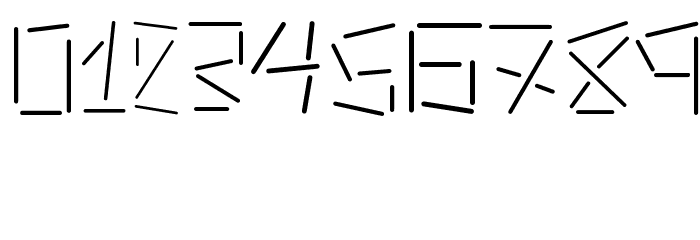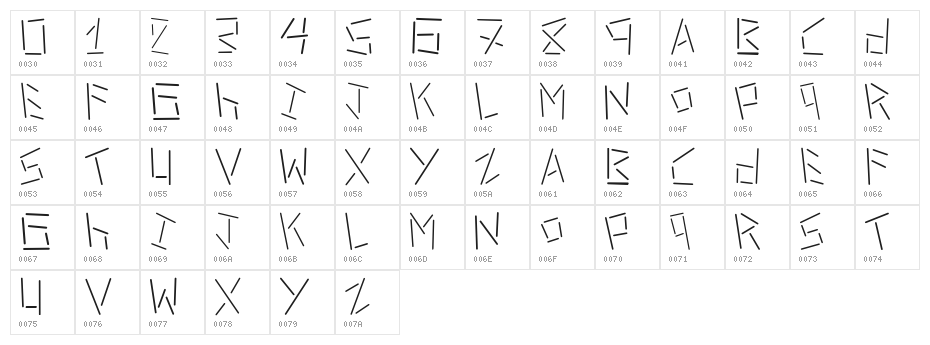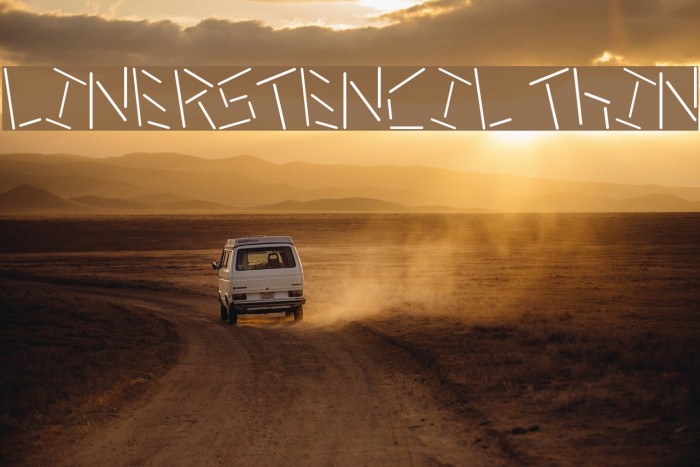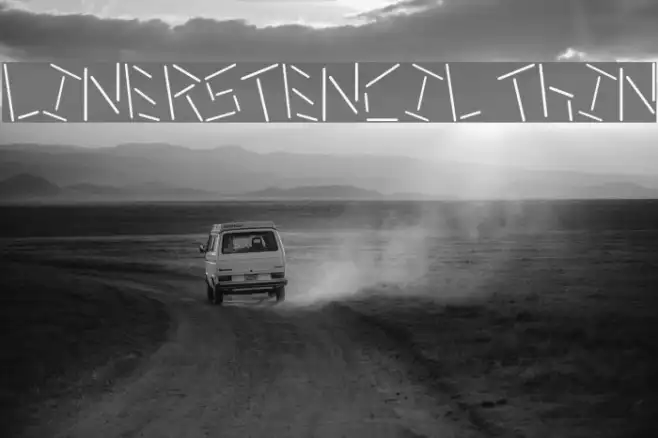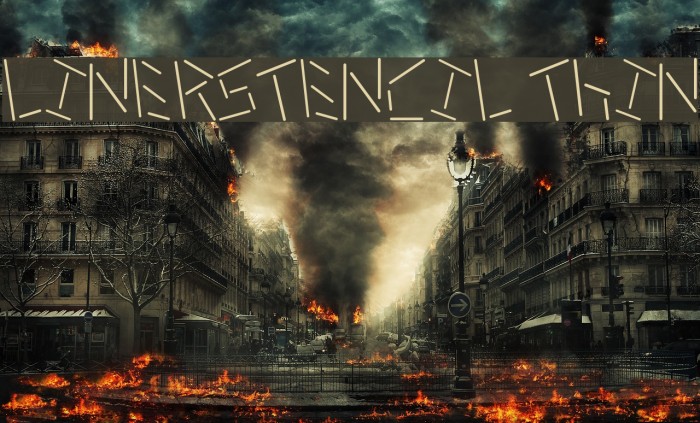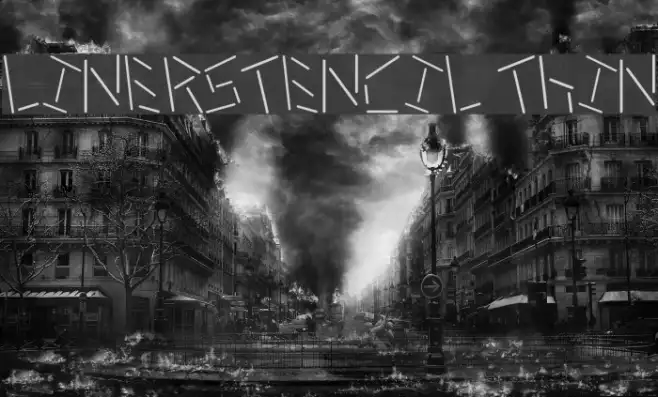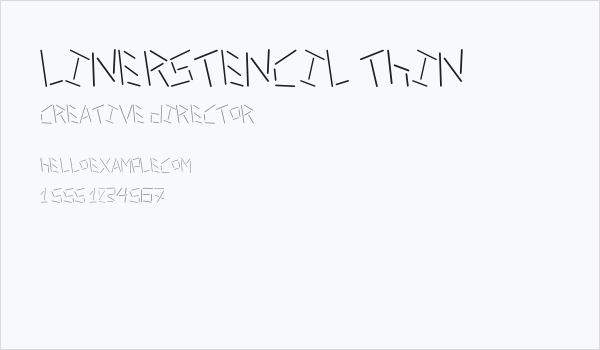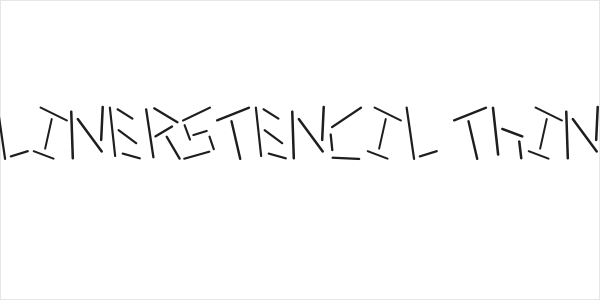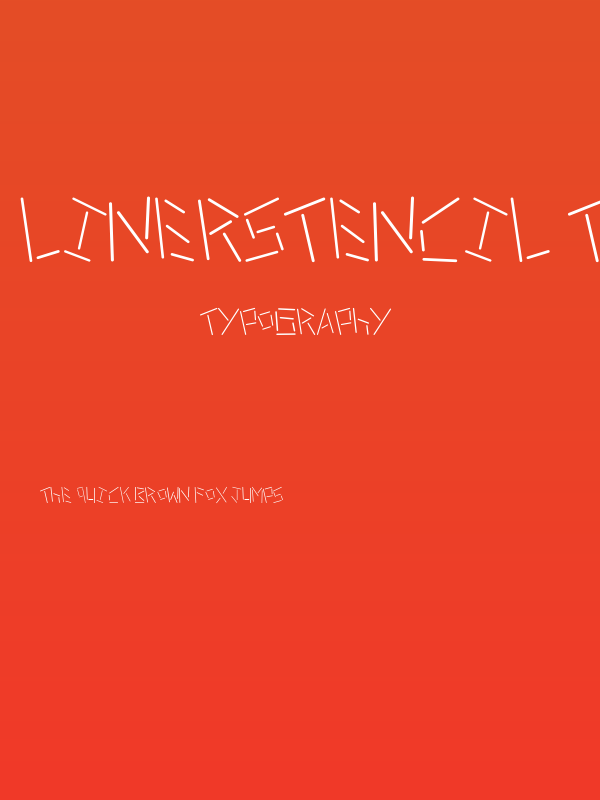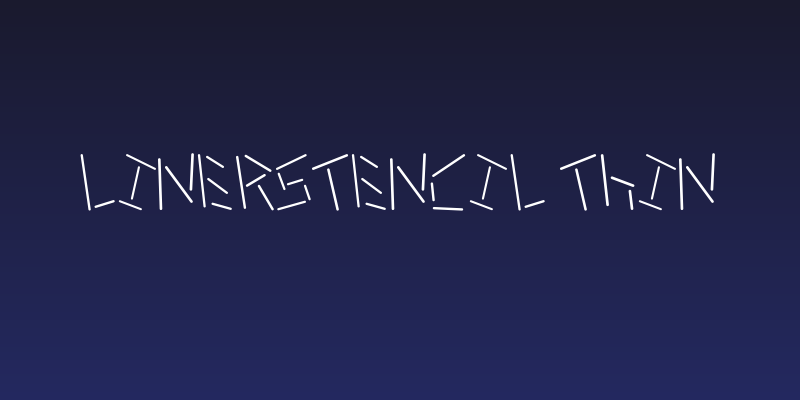
linerstencil thin Font
linerstencil thin Description
This font features a unique stencil design with thin, linear strokes that create a modern and industrial aesthetic. Each character is composed of disconnected lines, giving it a fragmented yet cohesive look. The uppercase and lowercase letters maintain a consistent style, with sharp angles and clean cuts that enhance its geometric appearance. Numbers and special characters follow the same design principles, ensuring uniformity across all glyphs. The font's minimalist approach makes it suitable for projects that require a contemporary and edgy feel.
Proposed ProjectsIdeal for branding, packaging, posters, and any design work that seeks a modern, industrial look.